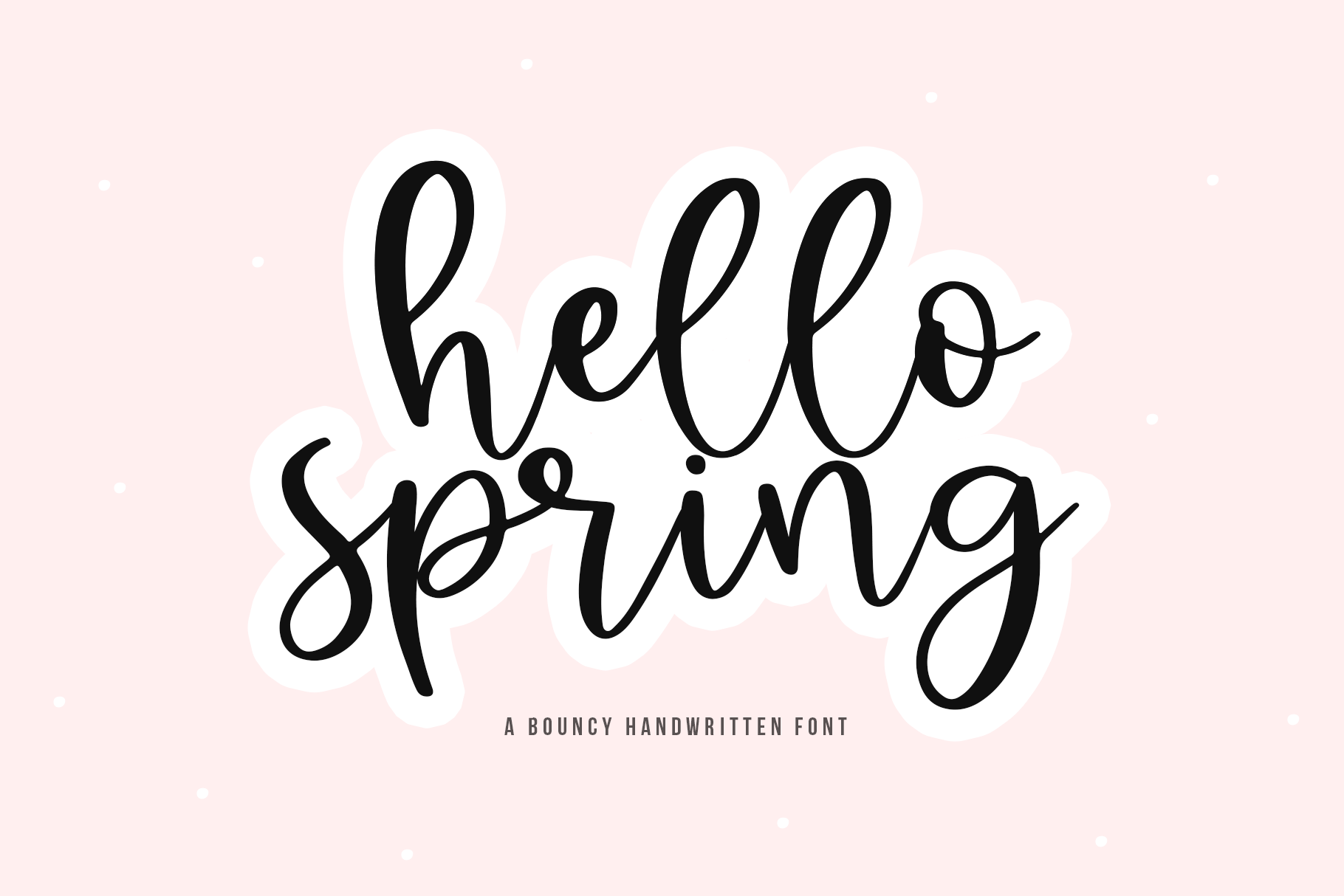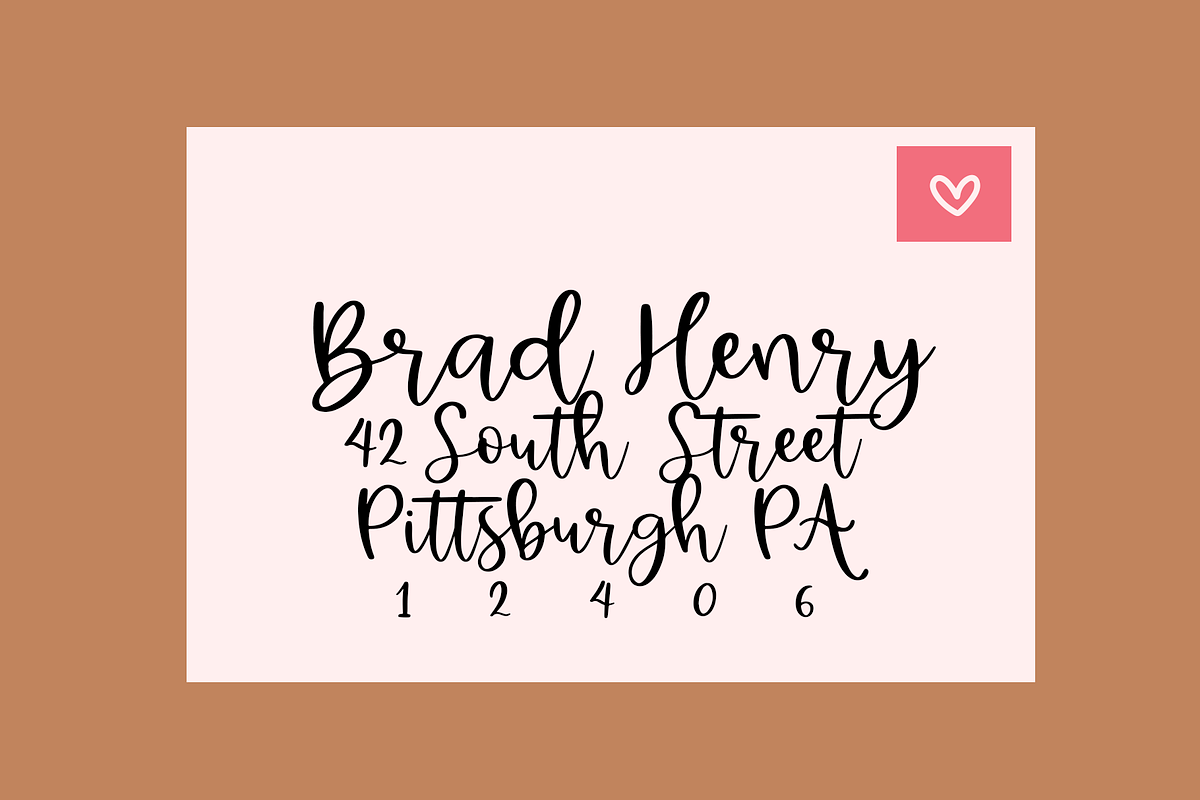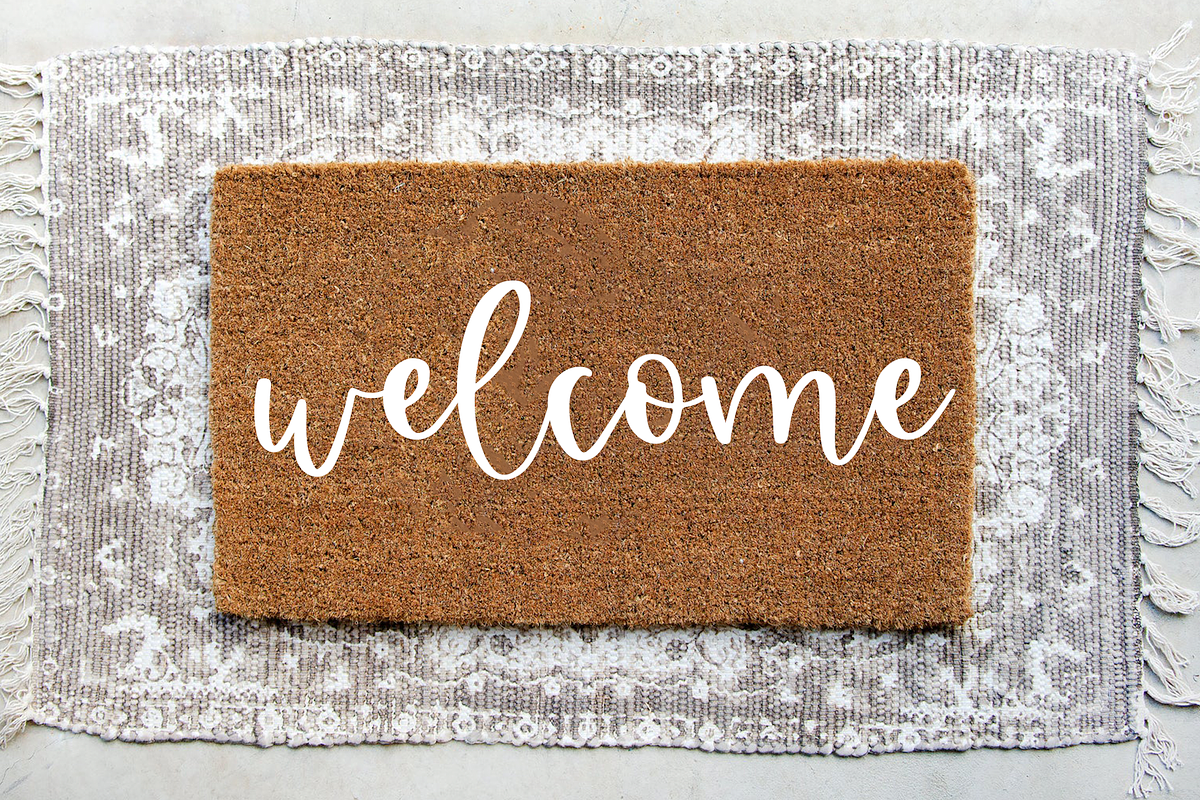
Hello Spring | Bouncy Script Font
Hello Spring is a fun, bouncy script font.
This font is perfect for all of your crafting projects, cricut, silhouette, svg designs, branding, logos, invitations and more!